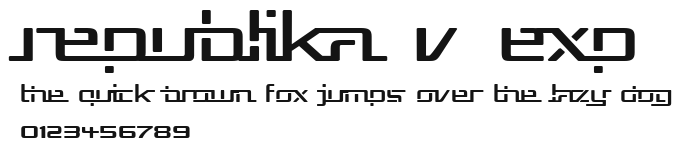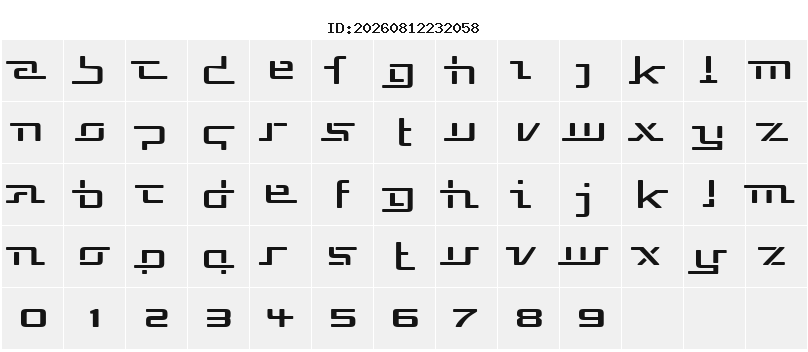
• Font Name: Republika V Exp
• Designer: Apostrophe
About Republika V Exp.ttf
Republika V Exp.ttf is a modern, elegant sans-serif font designed for ultimate readability and visual harmony. Perfect for branding, headlines, web design, and print materials.